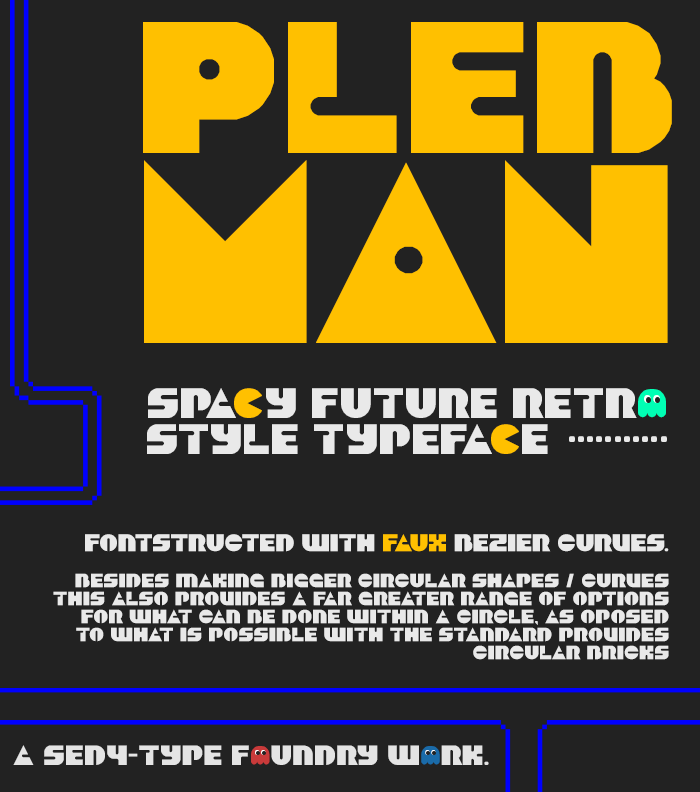
6 is kinda strange
9 isn't? :P
The K in the original logo before it was changed to Pac-Man had curves at the bottom if you did not know.
And at the top too
@BWM: Nopes I did not know that.